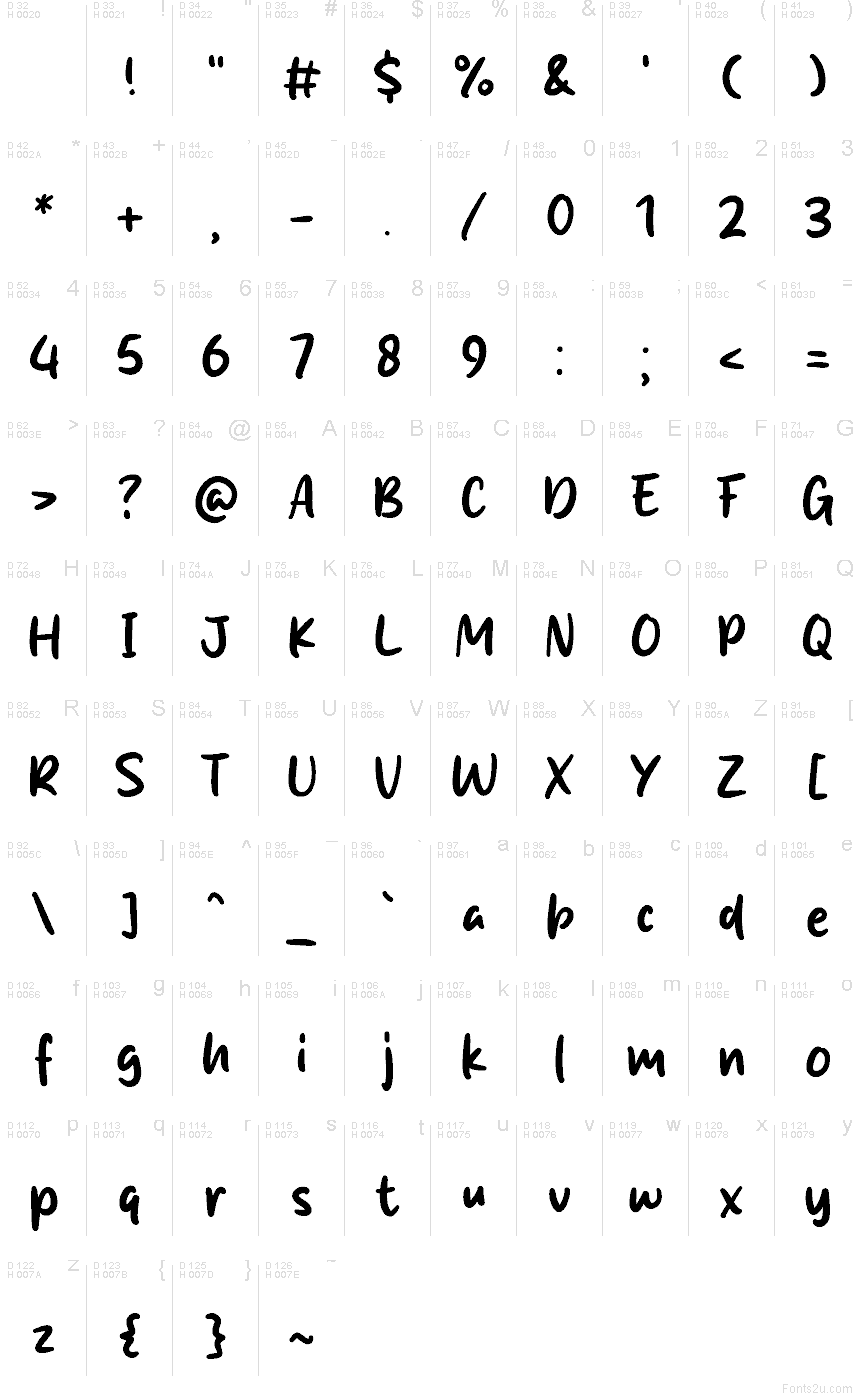
Butter Splash
Butter Splash font by MJType is a free handwritten typeface with a thick, inky stroke that feels like it’s been painted straight onto the page. Rounded edges and a loose, bouncy rhythm give it a friendly, slightly messy personality—more like a bold marker on glossy paper than a neat notebook script. It reads as playful and energetic, with enough weight to stand out even on busy backgrounds or colorful photos.
Using Butter Splash, this free font really shines on snack and beverage packaging, kids’ products, sticker sets, bold social posts, YouTube thumbnails, and casual logo wordmarks. Its chunky forms hold up beautifully at larger sizes, where the brushy edges and soft curves can breathe. Pair it with a simple, clean sans serif for body text or captions to keep layouts readable while letting Butter Splash carry the fun, attention-grabbing headlines.